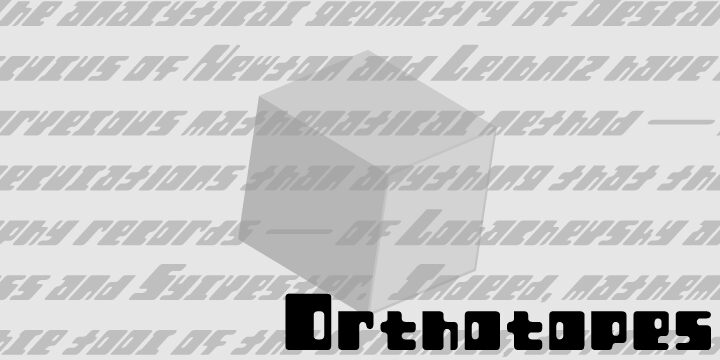
Orthotopes
Rob Barba
Orthotopes is reminiscent of that ever-familiar 70's style sci-fi font whose name I cannot recall and probably doesn't look a thing like this anyway. ^_^;;;